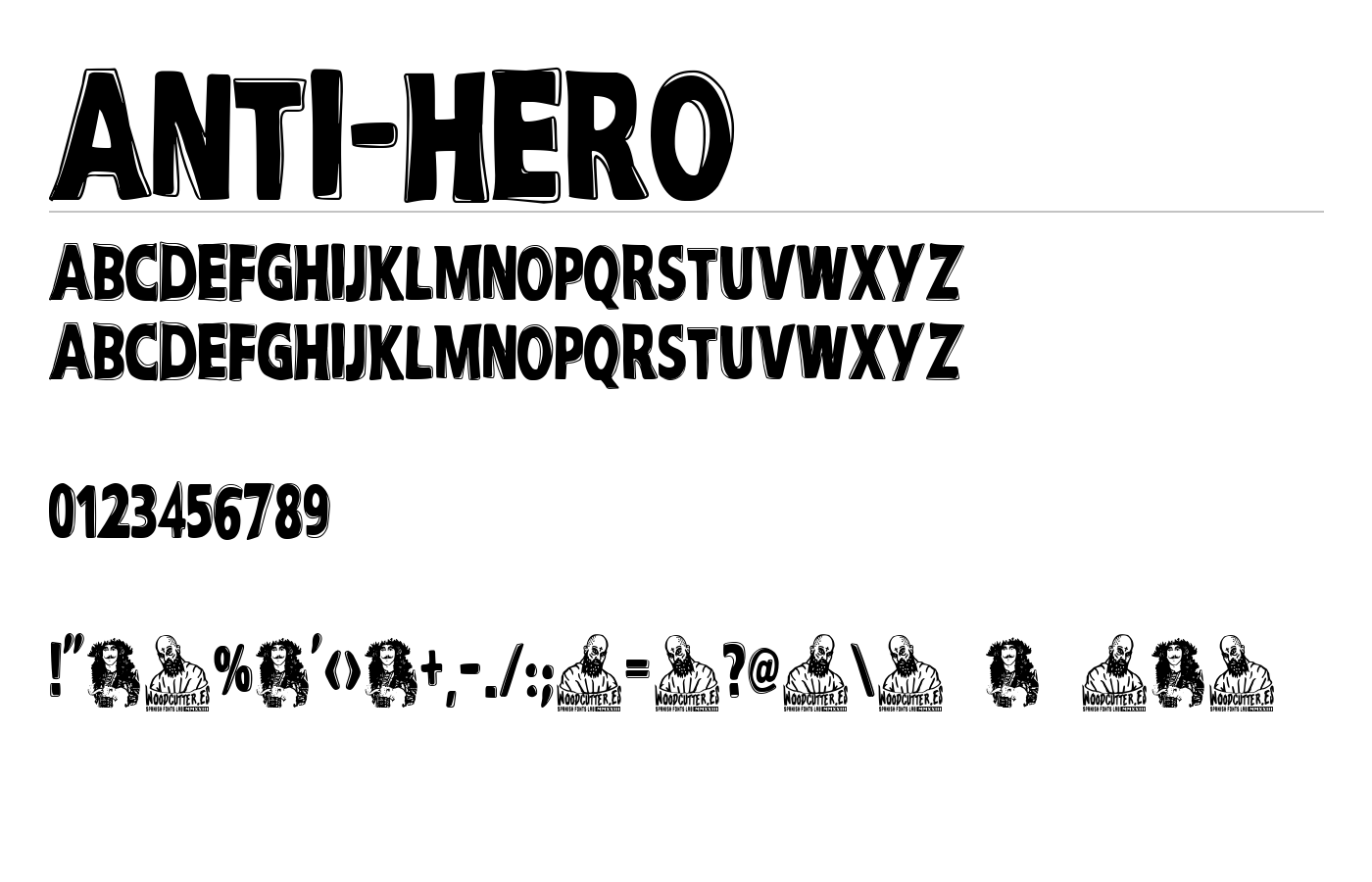
Anti-Hero is a bold, playful sans serif font with an irregular, hand-drawn feel that gives it a quirky and dynamic personality. Its chunky letterforms are slightly condensed with low contrast and uneven strokes, creating an informal, energetic style that works well for eye-catching headlines, posters, and branding with a rebellious edge. This font’s unique, illustrated glyphs add character, making it perfect for creative projects seeking a fun, unconventional vibe.
Anti-Hero Font
About Anti-Hero Font